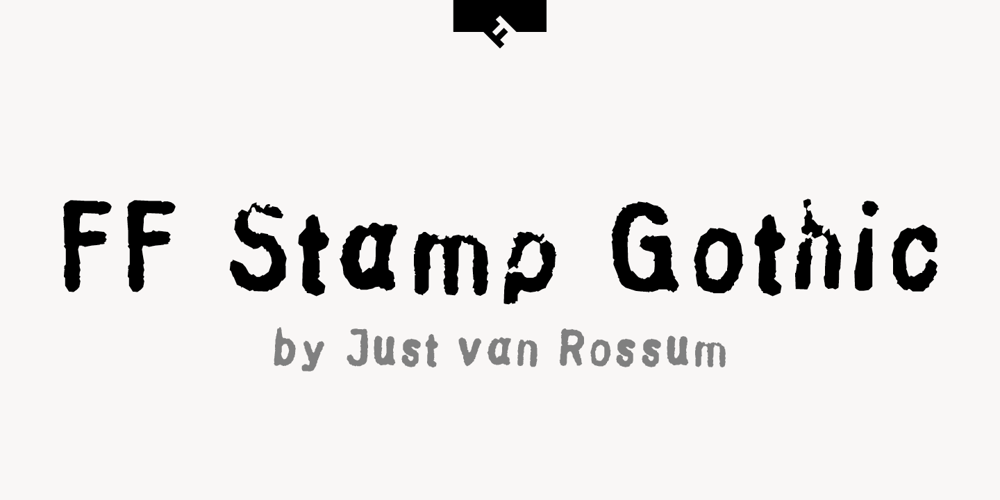
FF Stamp Gothic Font Family was designed by Just van Rossum and published by FontFont. FF Stamp Gothic contains 1 styles and family package options. Dutch type designer Just van Rossum created this display FontFont in 1992. The font is ideally suited for advertising and packaging, film and tv, editorial and publishing, music and nightlife as well as software and gaming. FF Stamp Gothic provides advanced typographical support with features such as ligatures, alternate characters, case-sensitive forms, and stylistic alternates. It comes with proportional lining figures. As well as Latin-based languages, the typeface family also supports the Greek writing system.